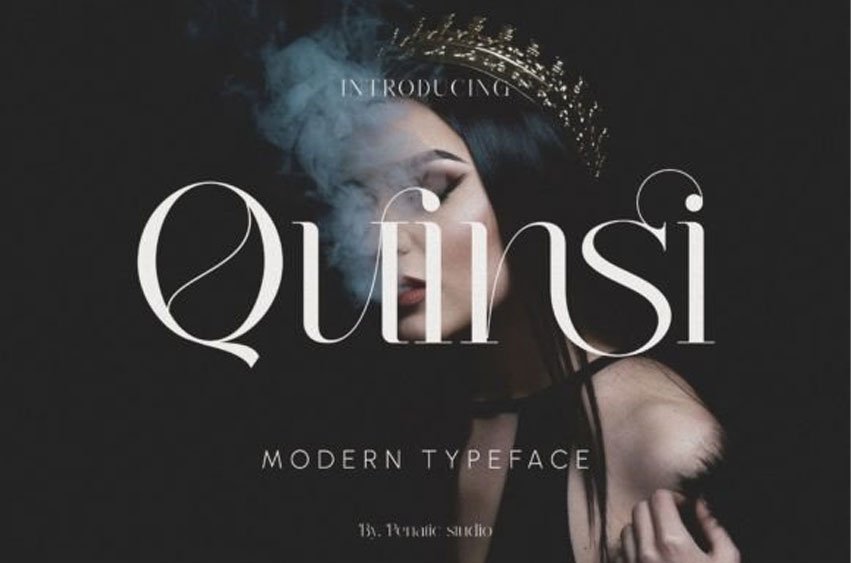
Quinsi Modern Font Typeface is an elegant blend of classic elements and contemporary touches, creating an alluring look with a soft and inviting feel. Smooth lines and gentle curves give it a graceful and flowing character, while modern touches give it a fresh, up-to-date look.
This font conveys a classic yet understated elegance, perfect for design projects that wish to portray elegance, softness, and modernity in a harmonious whole.